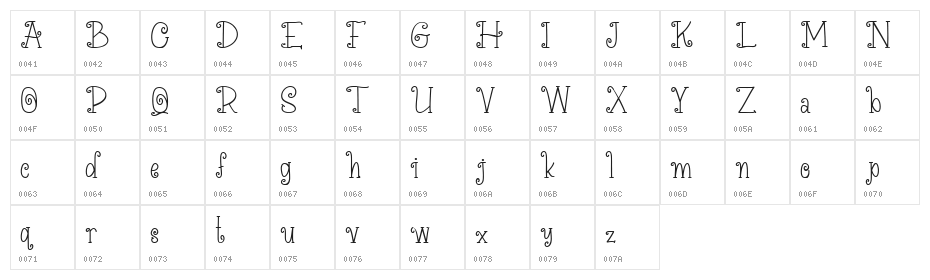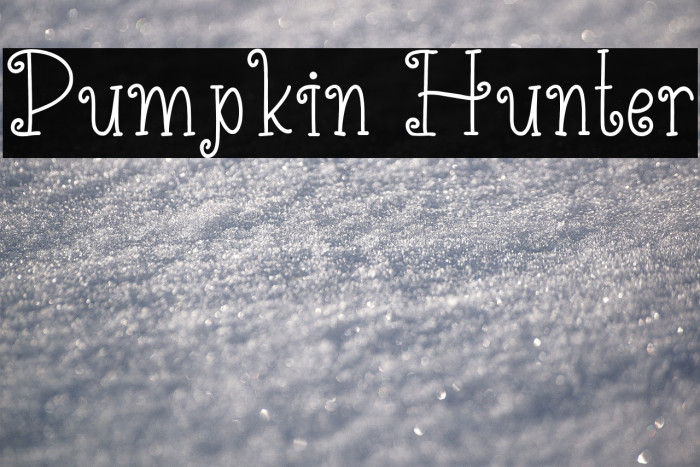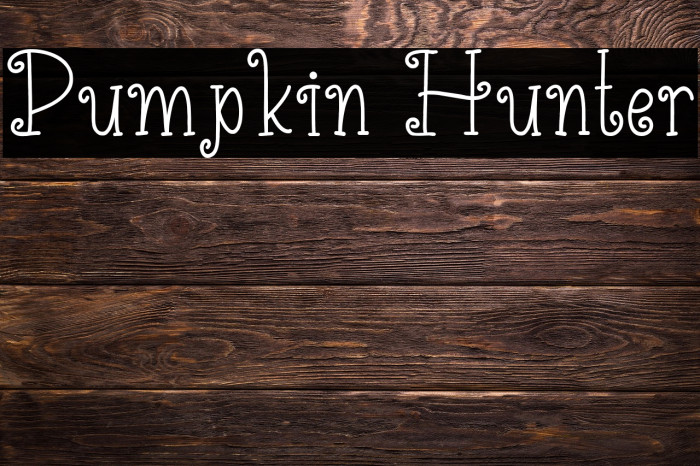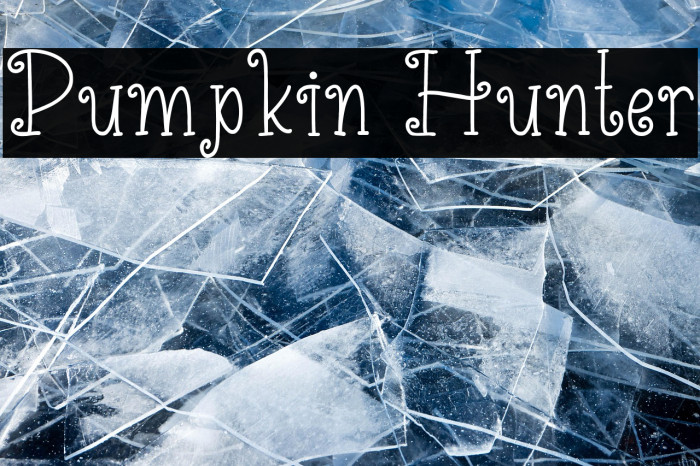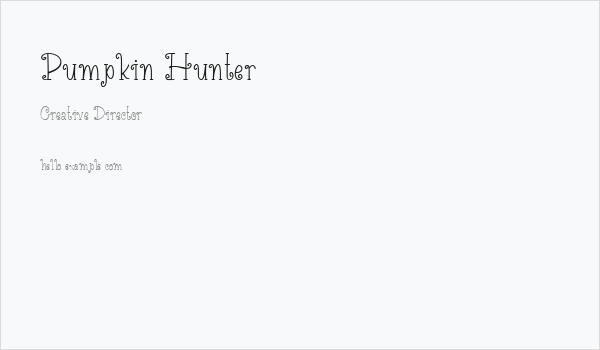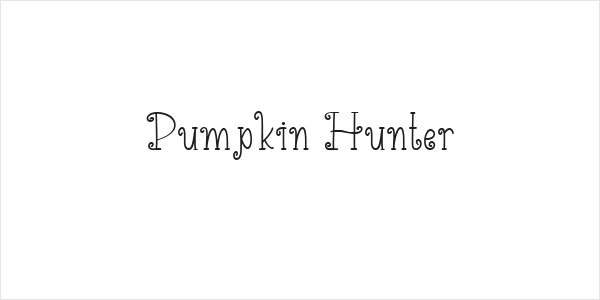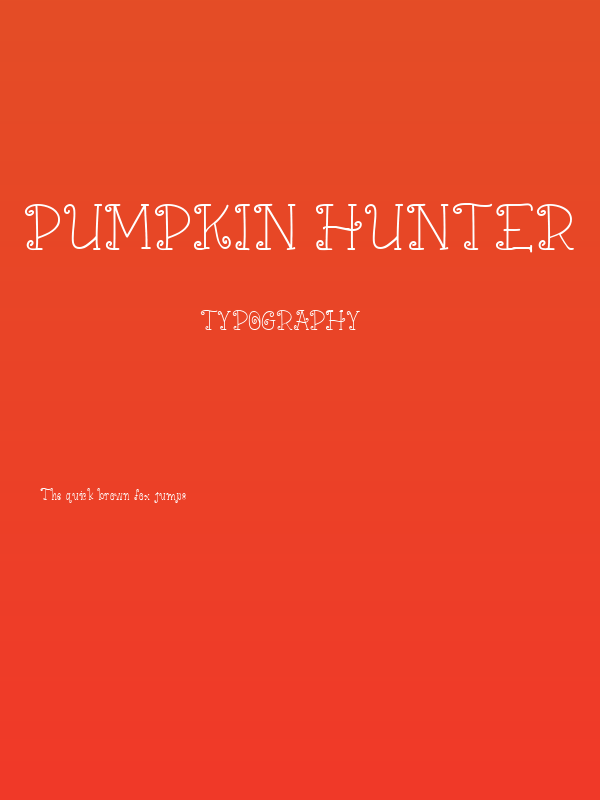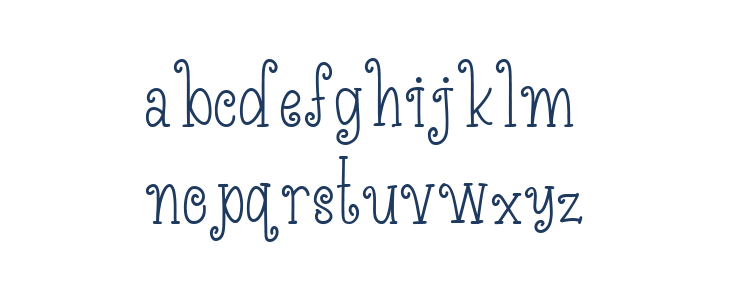
Pumpkin Hunter Font
Pumpkin Hunter Description
This playful and whimsical font features a decorative style with curly embellishments on each character, giving it a unique and festive appearance. The uppercase and lowercase letters maintain a consistent design, with swirls and loops that add a sense of fun and creativity. The font's strokes are moderately thick, providing good readability while maintaining its decorative flair. The numbers and special characters are designed to match the overall style, ensuring a cohesive look across all text elements. This font is perfect for projects that require a touch of whimsy and creativity, making it ideal for festive occasions, children's materials, or any design that seeks to capture a joyful and lighthearted spirit.
| Use Case | Headlines, Logos, Decorative text |
| Proposed Projects | Ideal for greeting cards, children's books, party invitations, holiday decorations, and playful branding. |